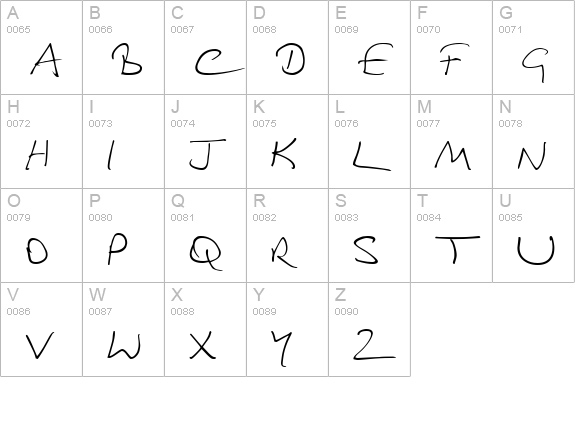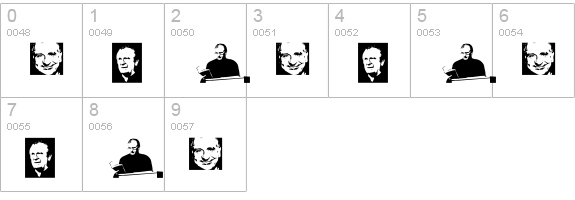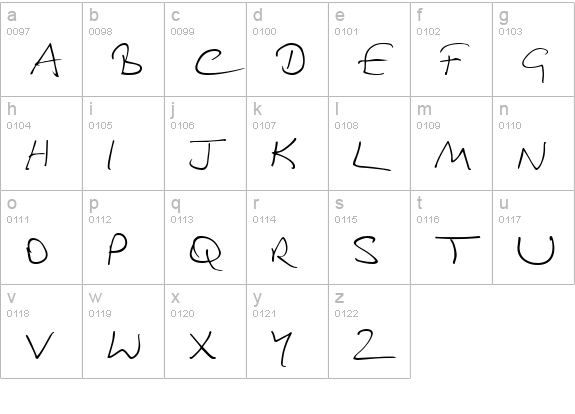
Douglas Adams Hand Font Details
Introducing the Douglas Adams Hand font, a whimsical and quirky typeface inspired by the legendary author himself. This font captures the essence of Douglas Adams' unique writing style, with its playful curves and eccentric charm. The Douglas Adams Hand font is perfect for adding a touch of creativity and personality to your projects, whether you're designing book covers, posters, or invitations. Best of all, the Douglas Adams Hand font is completely free to download at FontsMarket.com. So go ahead and unleash your inner Hitchhiker with this delightful font that pays homage to one of the most beloved literary figures of our time.